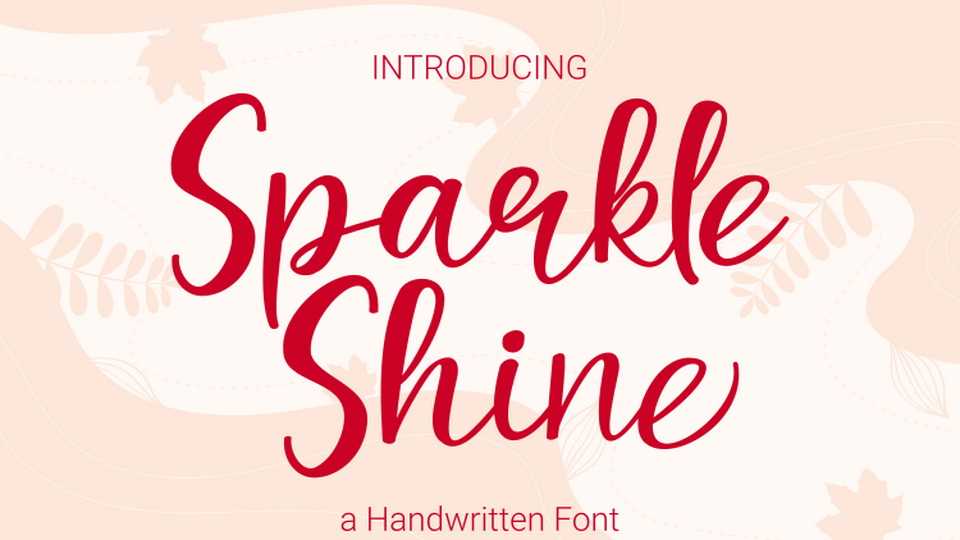
Download Sparkle Shine font, a cute and simple handwritten typeface that you can use for all chalkboard quotes or teaching material.
Designer: Rvandtype Studio